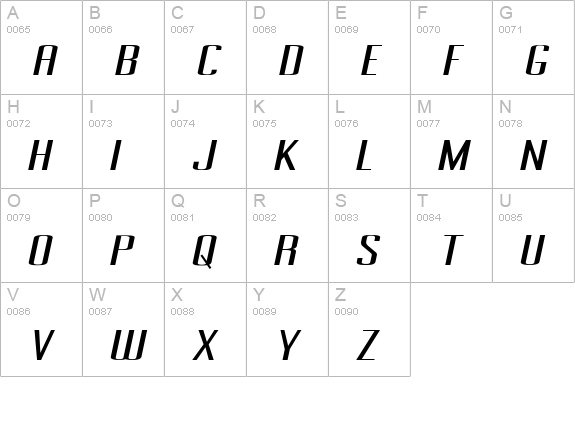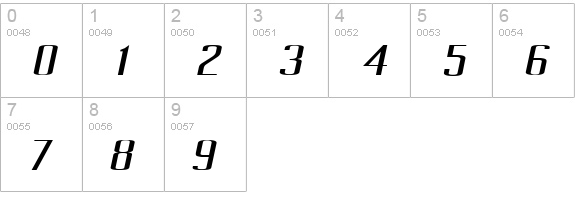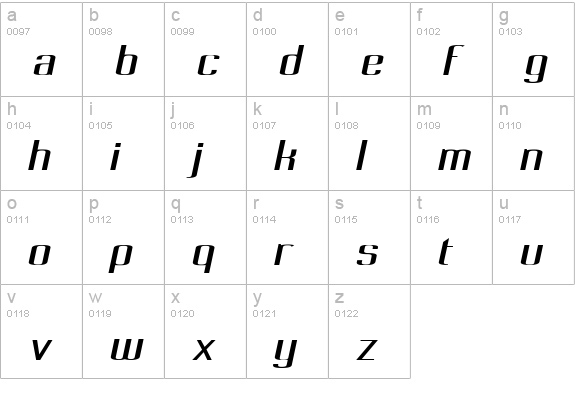
Pecot Oblique is a distinctive, italic variant in the Pecot typeface family \xE2\x80\x94 well suited to design and typography projects.
Introducing Pecot Oblique font - a modern and elegant typeface perfect for adding a touch of sophistication to your designs. With its sleek lines and stylish curves, Pecot Oblique brings a sense of contemporary flair to any project. This versatile font is ideal for branding, packaging, headlines, and more. The best part? Pecot Oblique is available for free download at FontsMarket.com. Simply visit the website to access this stunning font and elevate your design projects to the next level. Don't miss out on the opportunity to add Pecot Oblique to your font collection today!